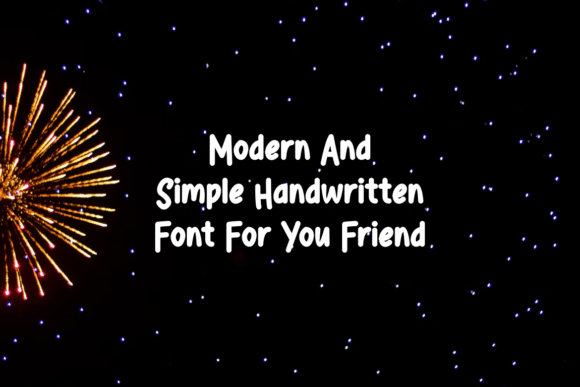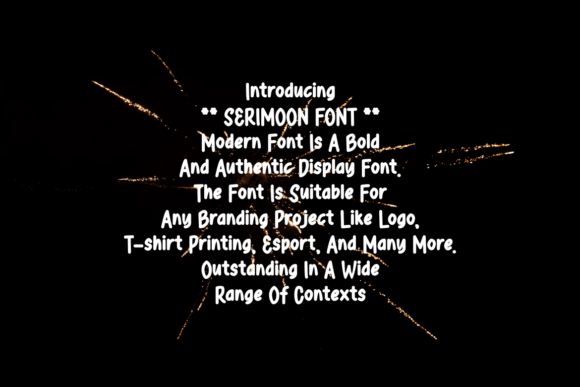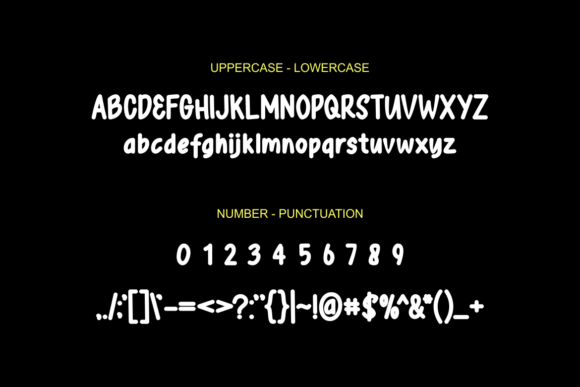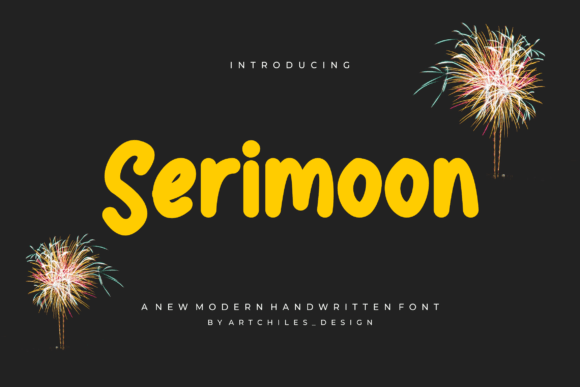
Introduction to Serimoon Font
Serimoon is a bold, handwritten font with a strong, confident style.
Its letters are thick and easy to read, making it perfect for adding a personal touch to any project .
Key Features of Serimoon Font
Why Choose Serimoon Font?
Serimoon Font offers exceptional quality and versatility, making it a valuable addition to your design toolkit. Whether you’re creating for personal projects or commercial use, Serimoon Font delivers professional results.